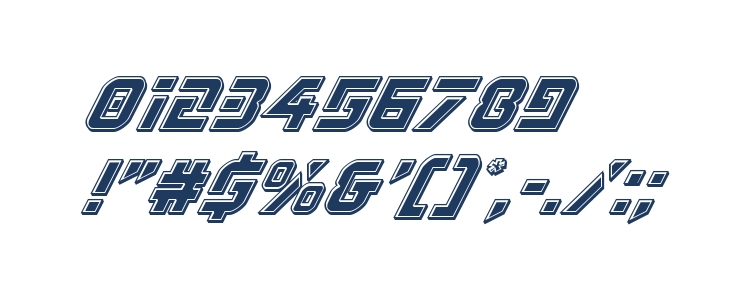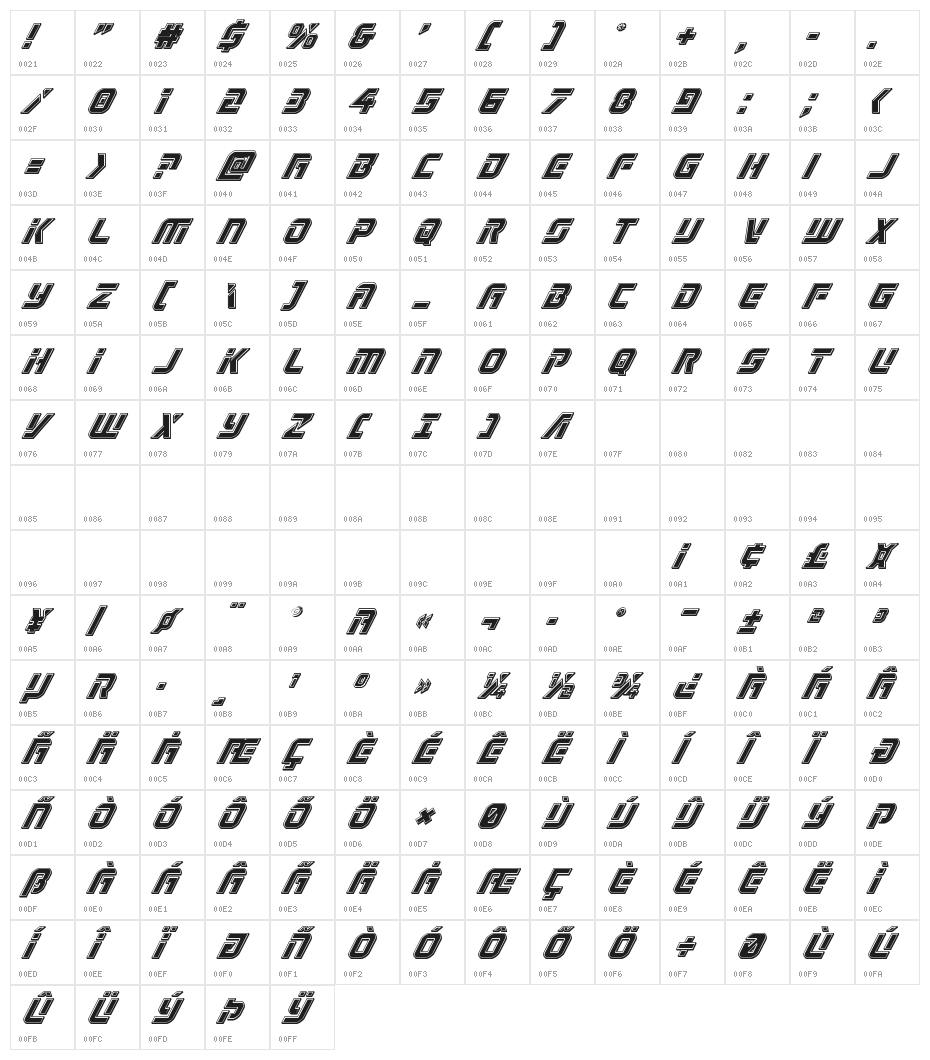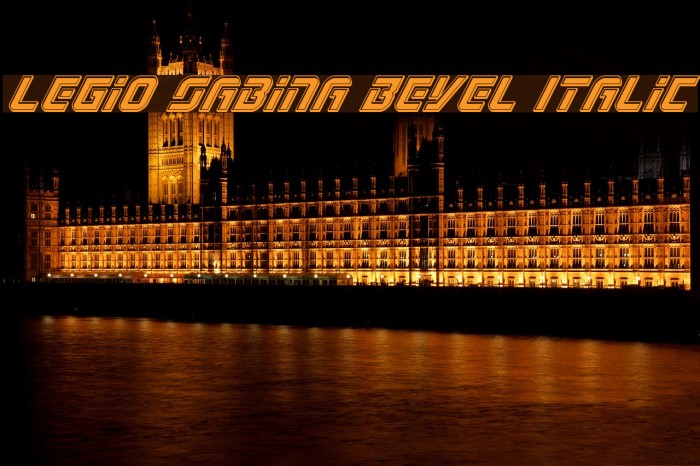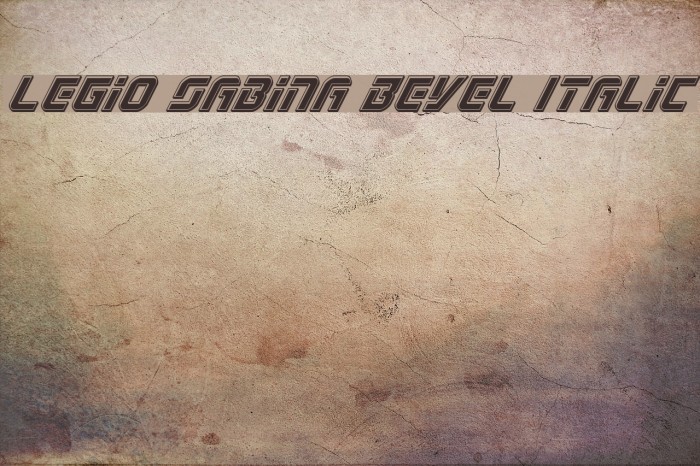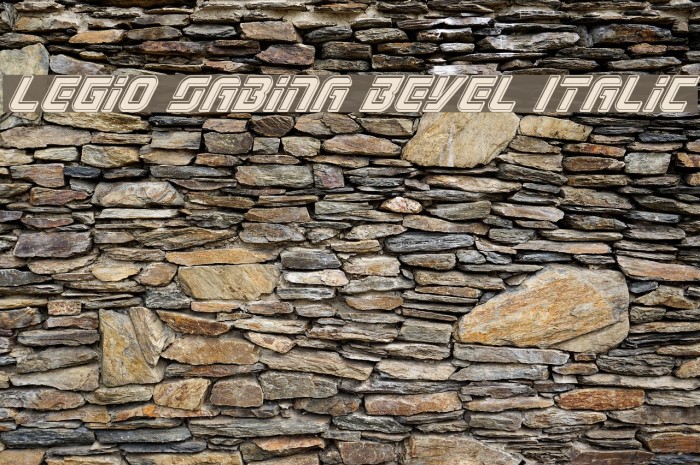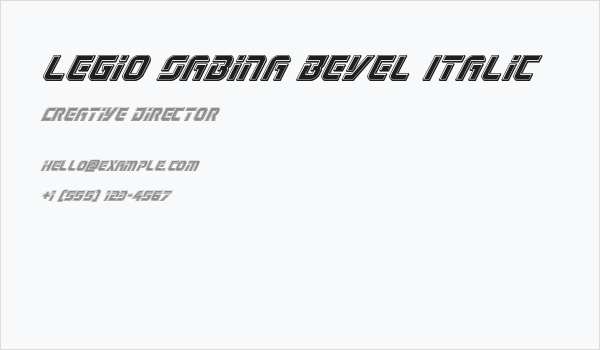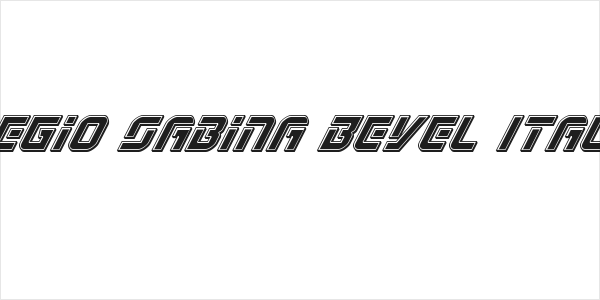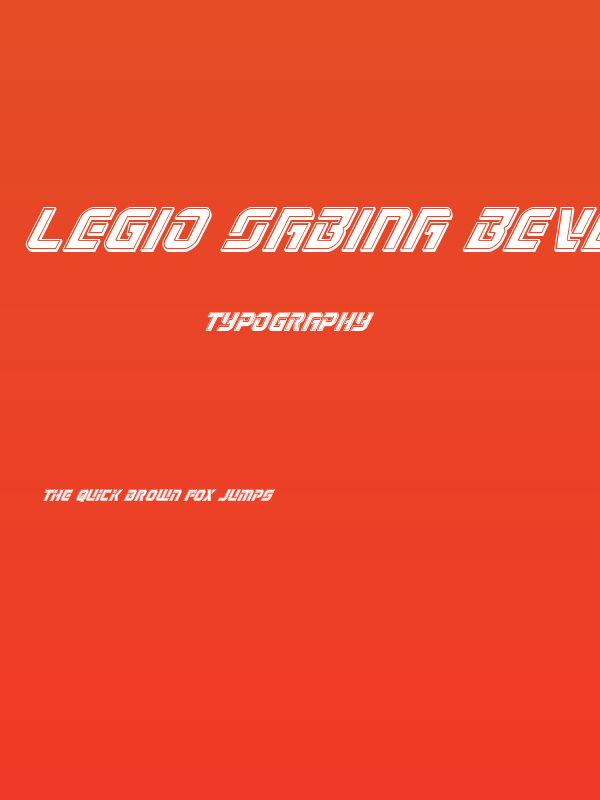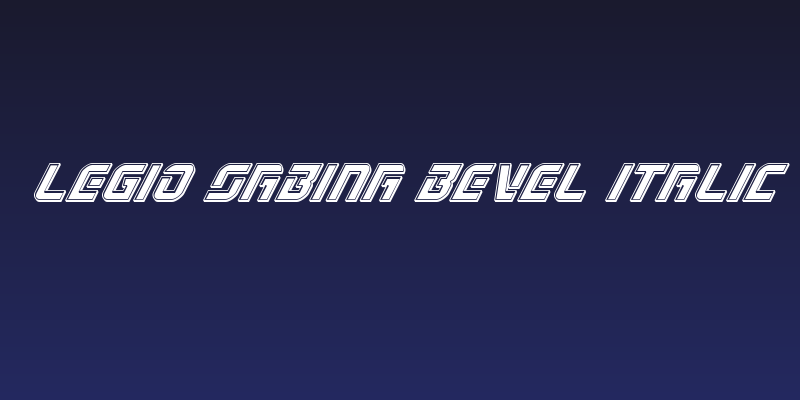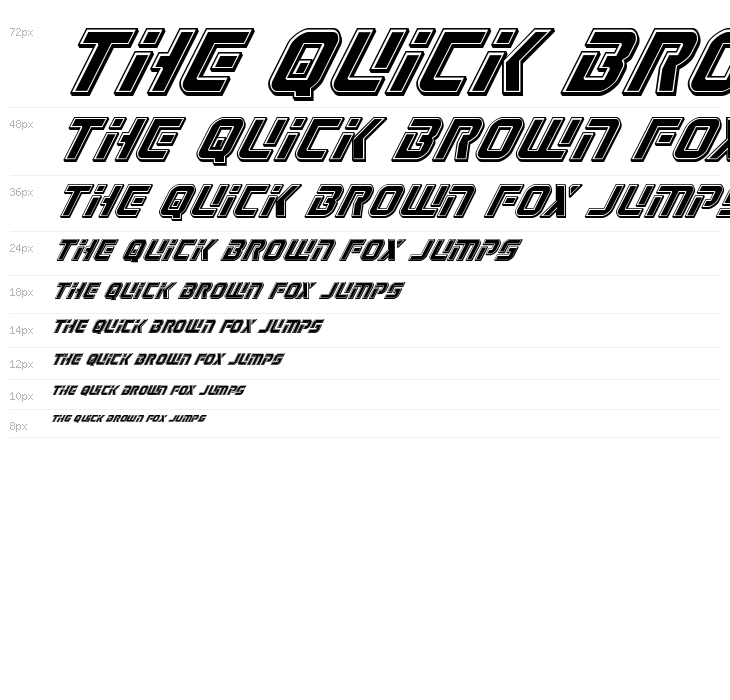
Legio Sabina Bevel Italic Font
Legio Sabina Bevel Italic Description
This font features a bold, italicized style with a distinct beveled edge that gives it a three-dimensional appearance. The characters are uppercase and lowercase, with numerals and a variety of special characters. The design is modern and dynamic, with a futuristic flair that makes it stand out. The strokes are thick and consistent, providing a strong visual impact. The spacing between characters is tight, enhancing the compact and cohesive look of the text. This font is ideal for projects that require a bold statement, such as branding, posters, or digital media.